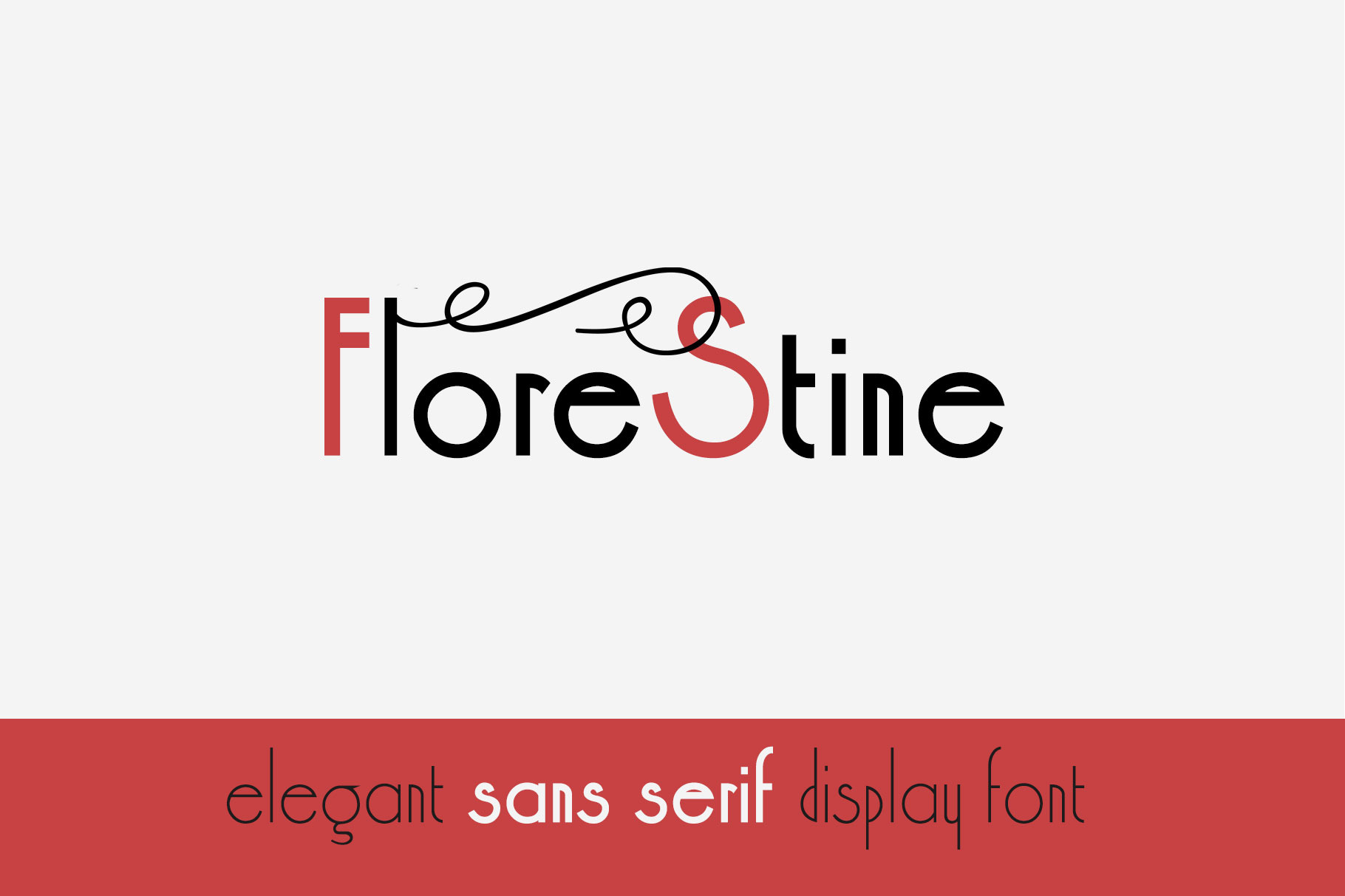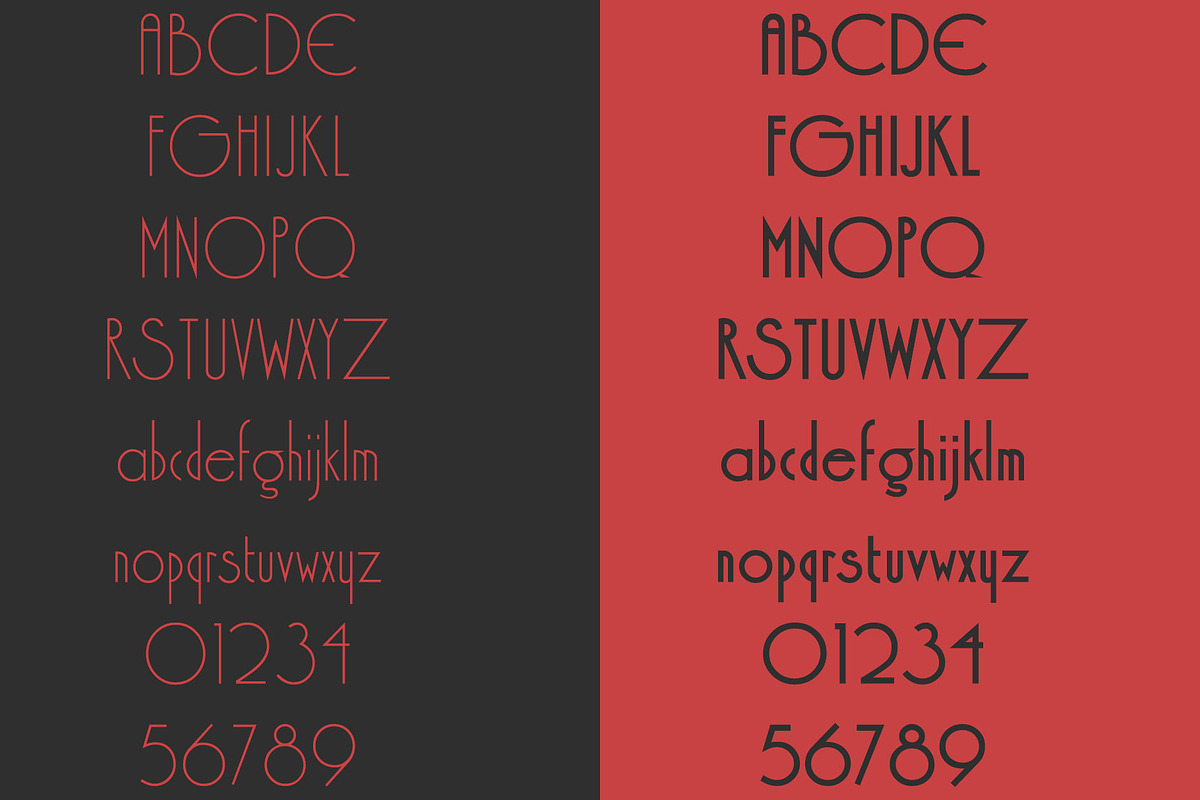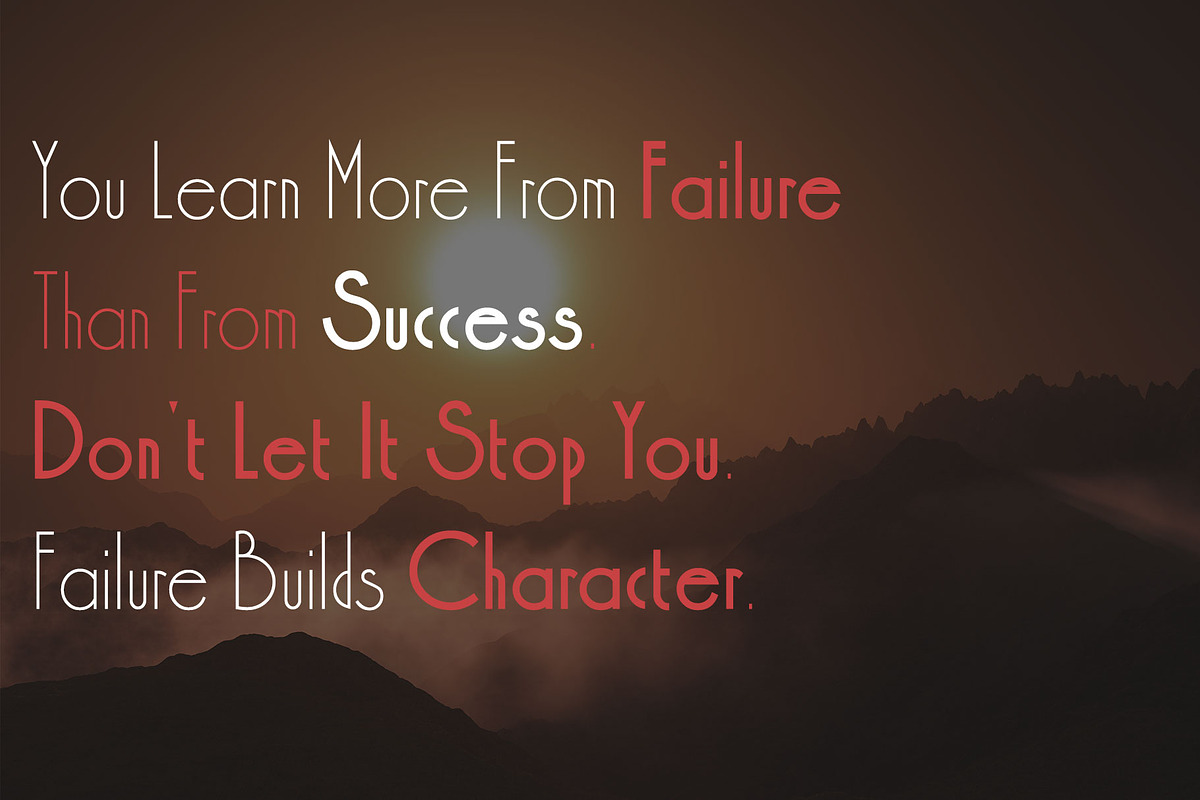
Florestine Sans Serif Font
Florestine Sans Serif suitable for art, modern envelope lettering or book design, happening style like handdrawn design or watercolor design theme, craft design, any DIY project, book title, wedding font, pop vintage design, or any purpose to make our art/design project look pretty and trendy
- Font Weight: Regular, Bold, Regular Italic, Bold Italic
Christinela font Features:
- Uppercase Multilingual Letters
- Lowercase Multilingual Letters